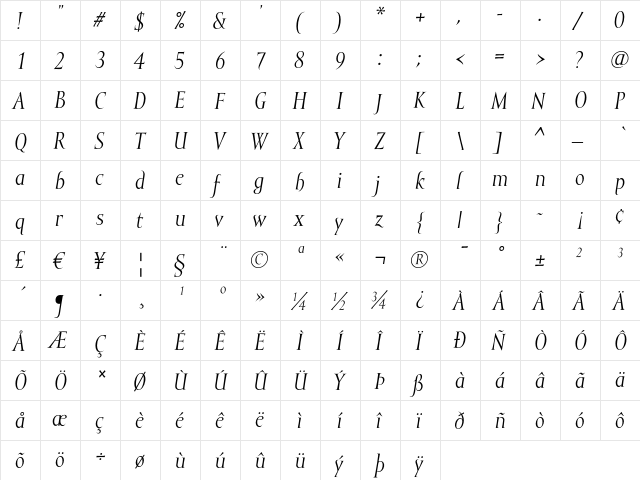
Mramor Italic
Design Context for Mramor Typeface
Mramor is a composed and adaptable typeface that performs quietly and consistently across a wide range of design contexts. The slanted form adds forward momentum and visual energy.
Pro Tip: Try Mramor for annotation and caption copy alongside an upright companion — the contrast in angle creates a dynamic but ordered typographic system.